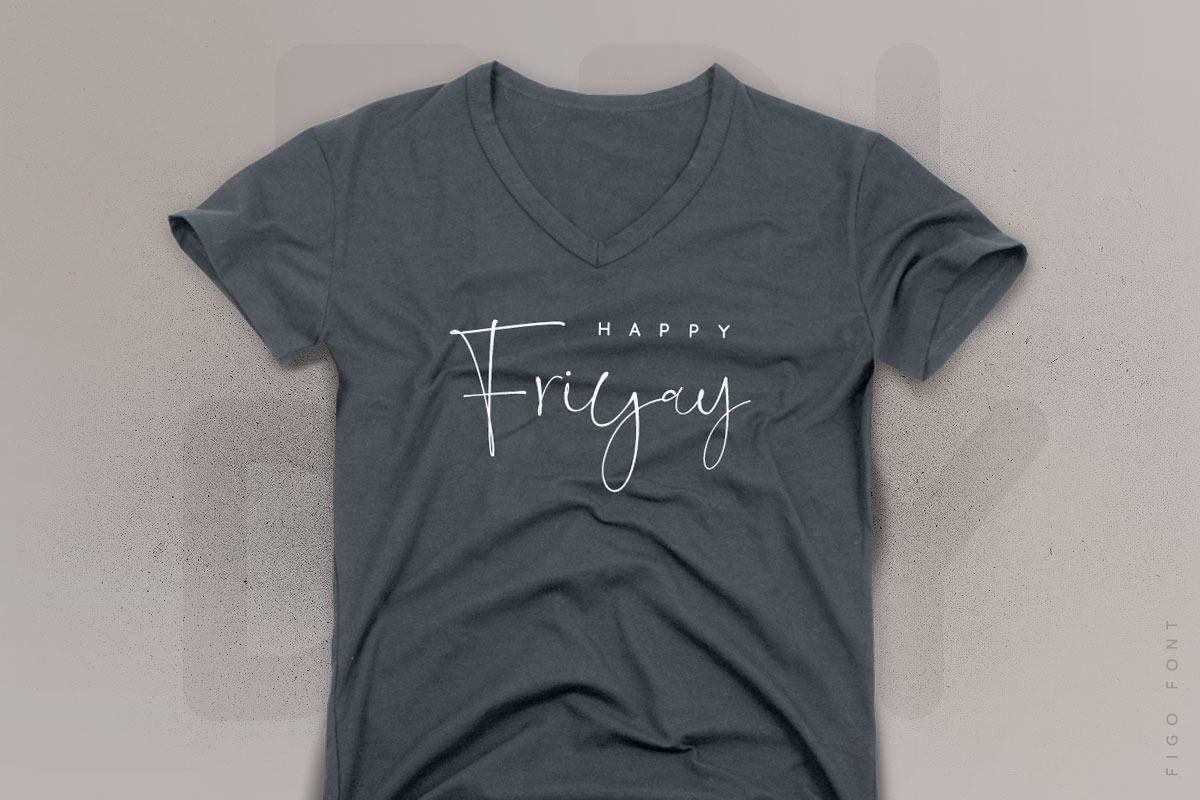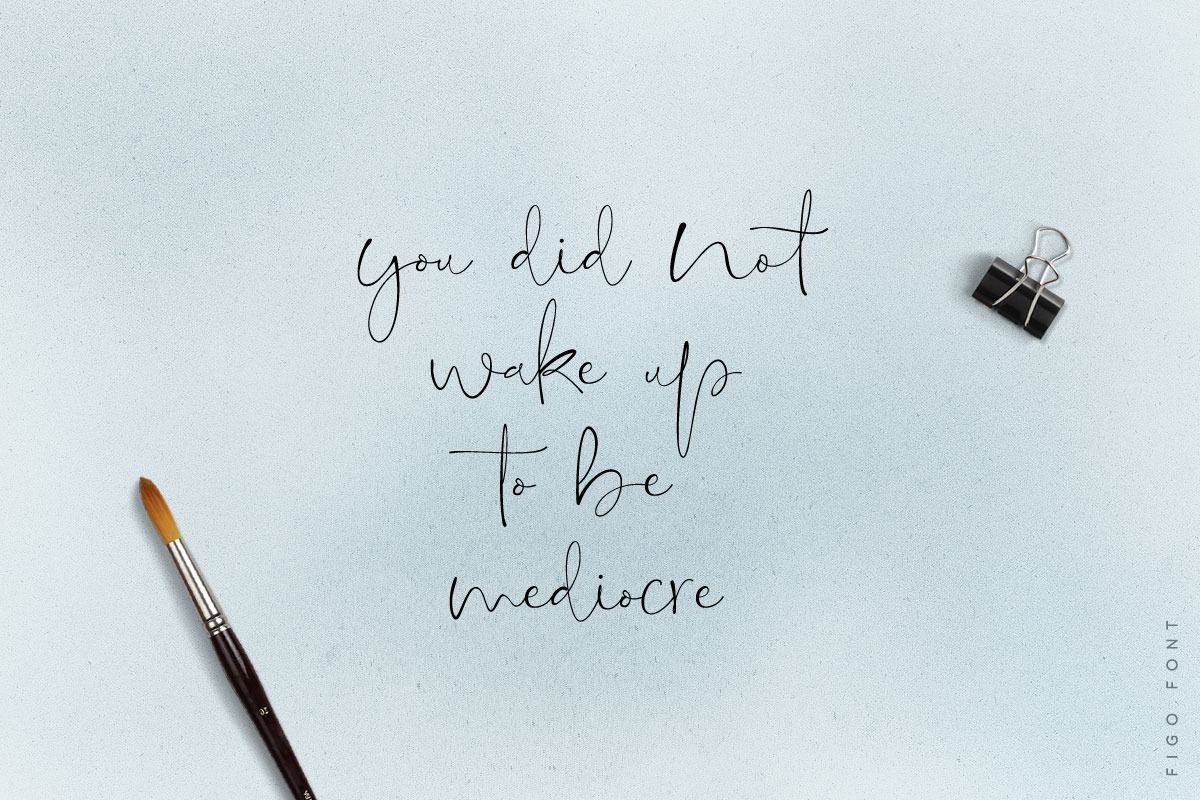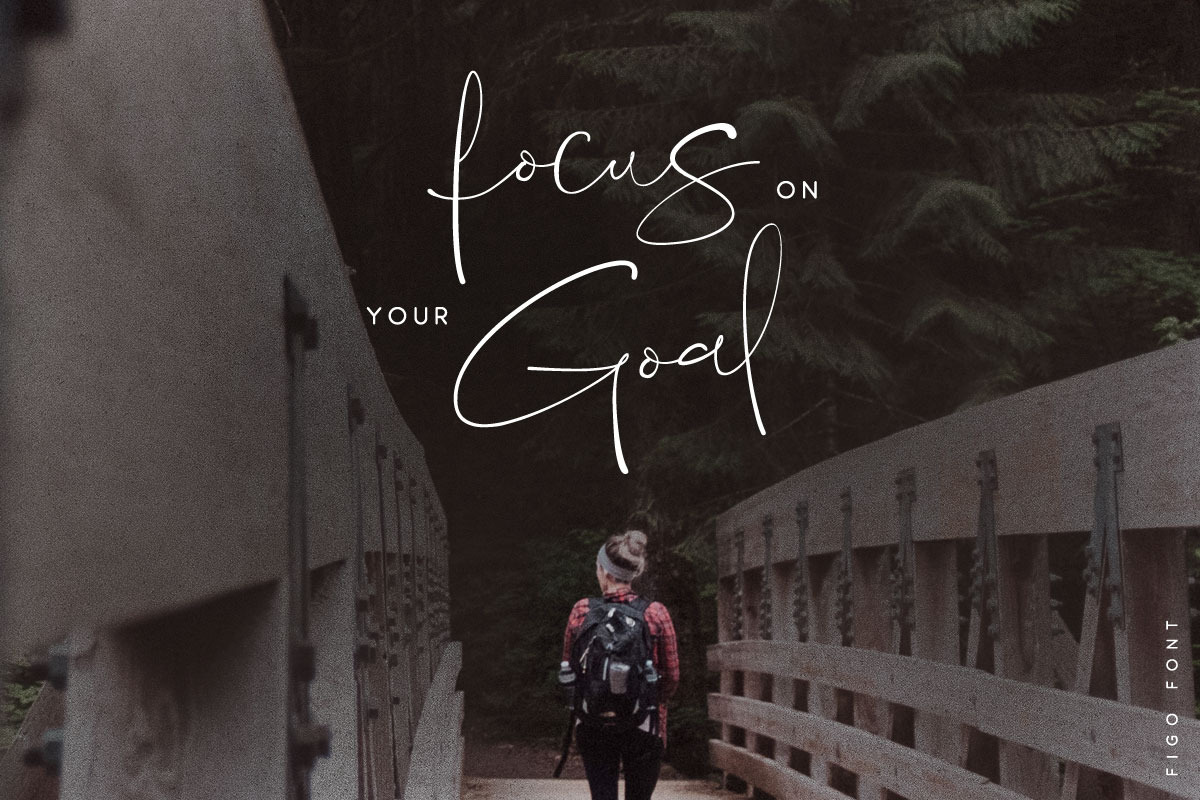
figo font
Figo is modern script font, every single letters have been carefully crafted to make your text looks beautiful. With modern script style this font will perfect for many different project ex: quotes, blog header, poster, wedding, branding, logo, fashion, apparel, letter, invitation, stationery, etc.
Why figo font is worth a look
figo font by vuuuds fits naturally into Branding, posters, packaging, typography.